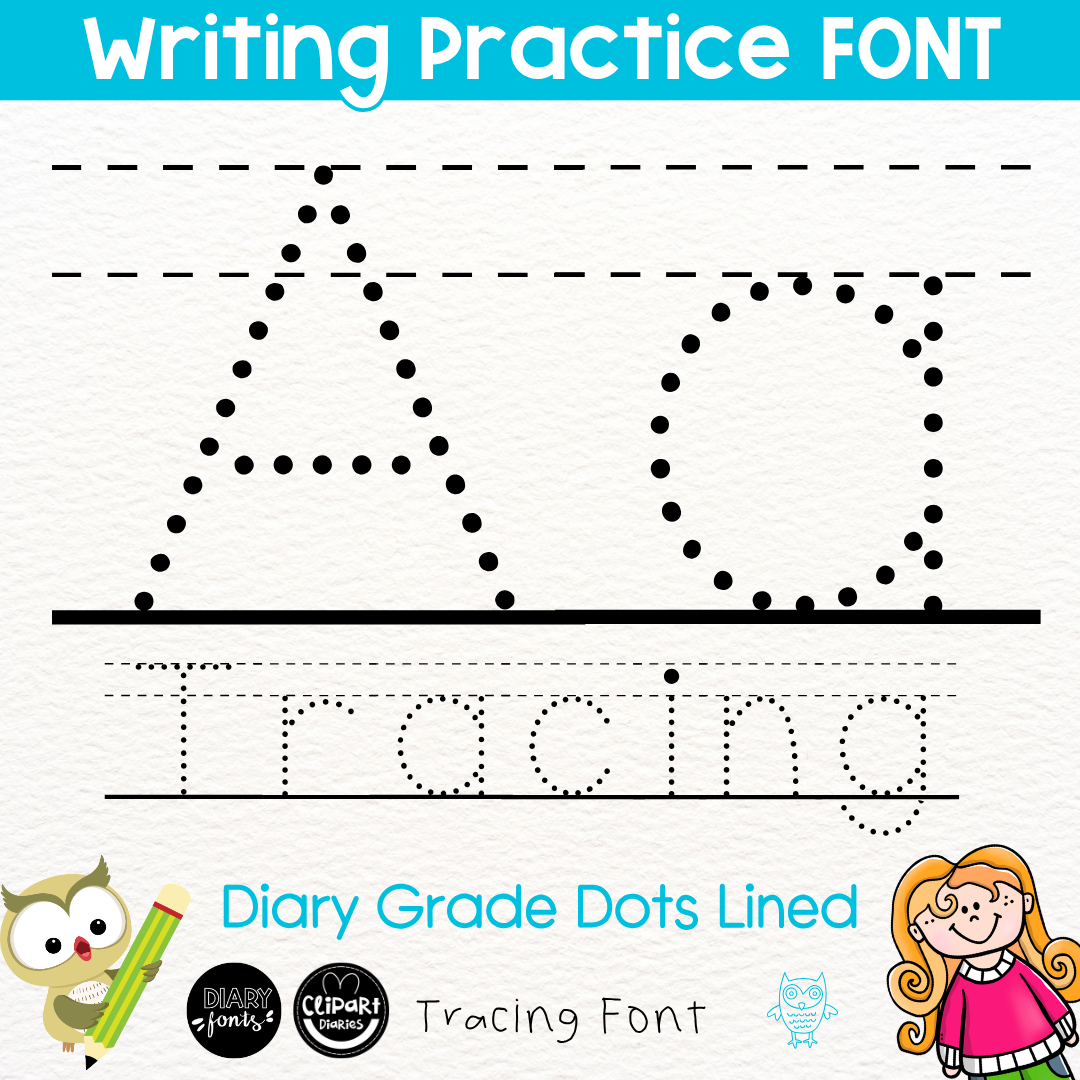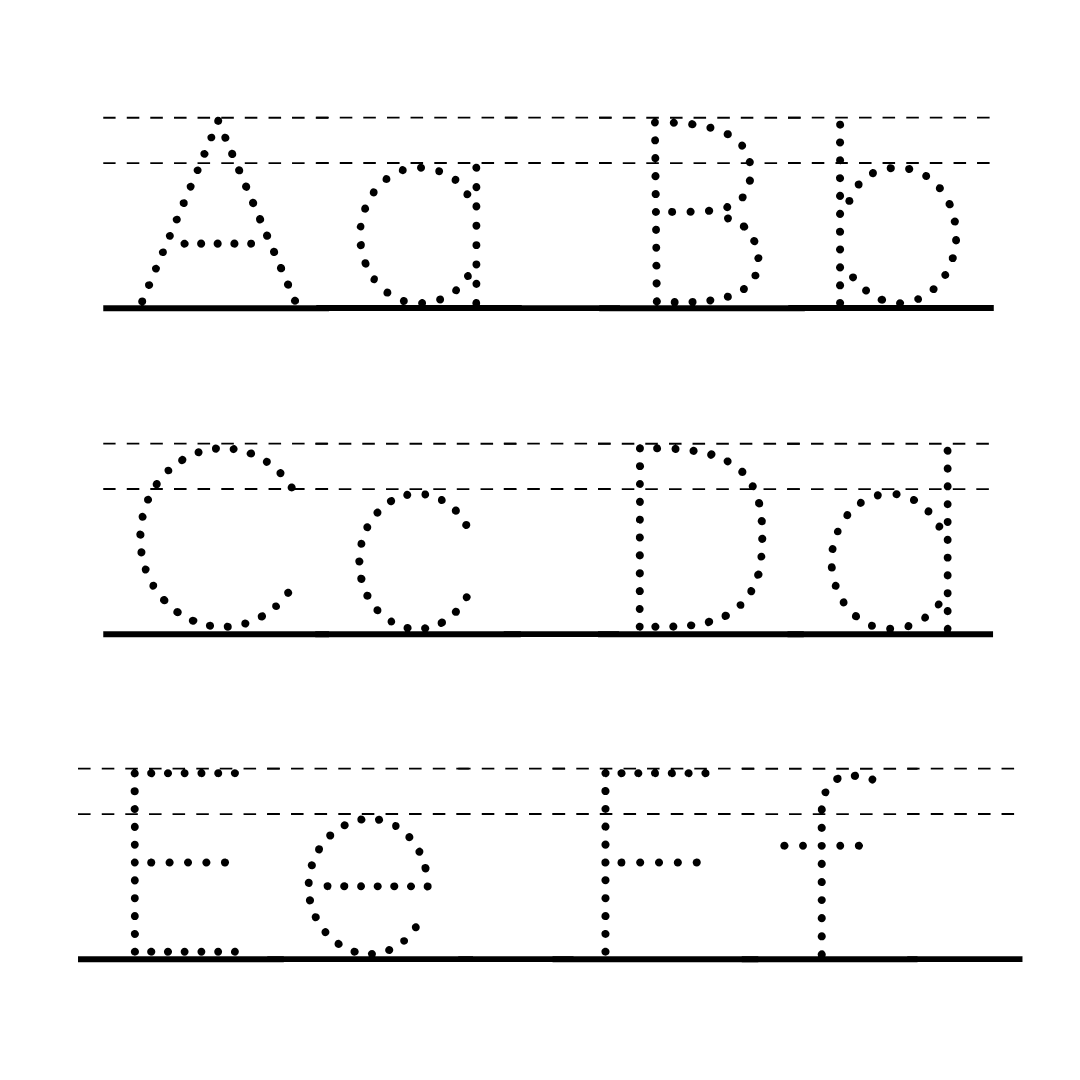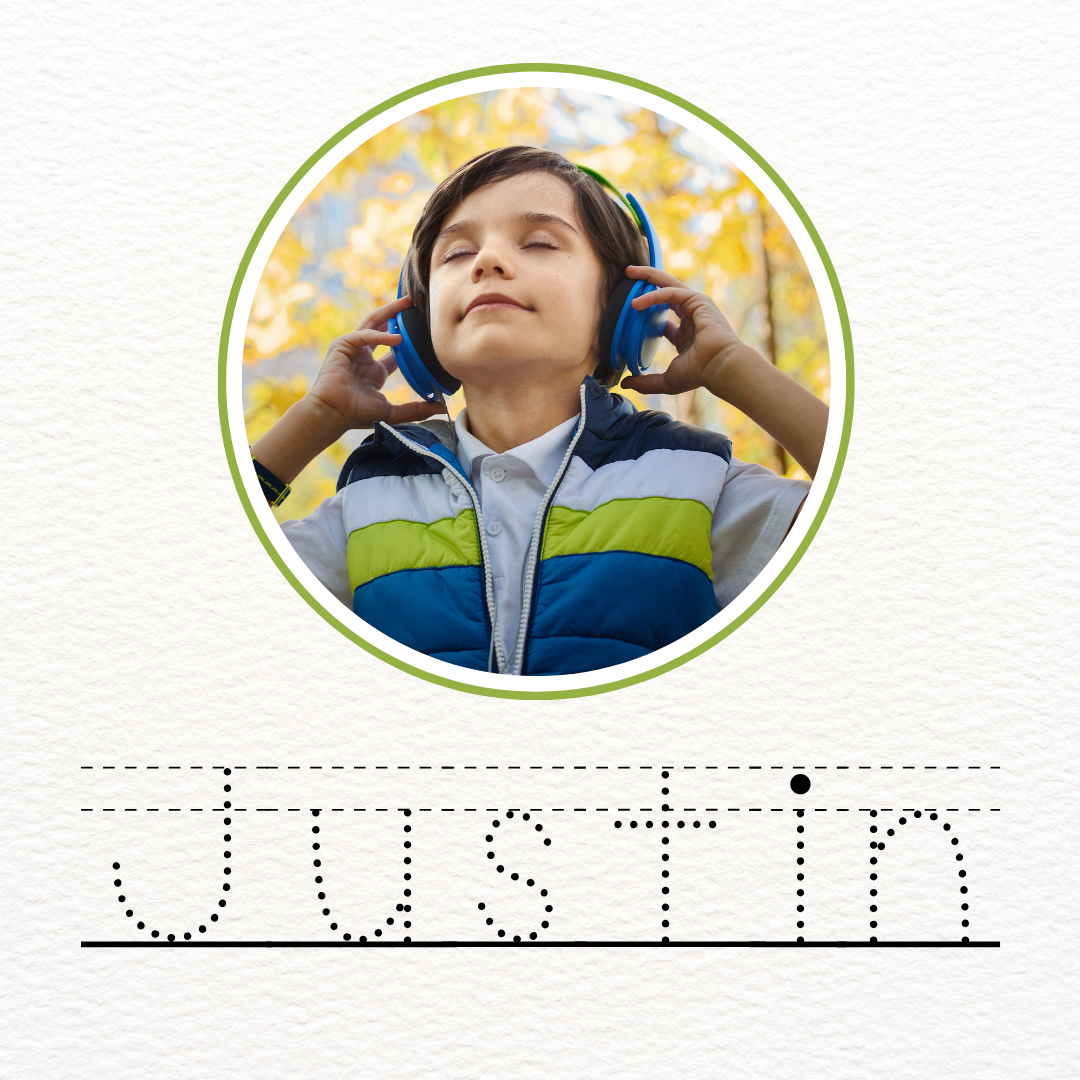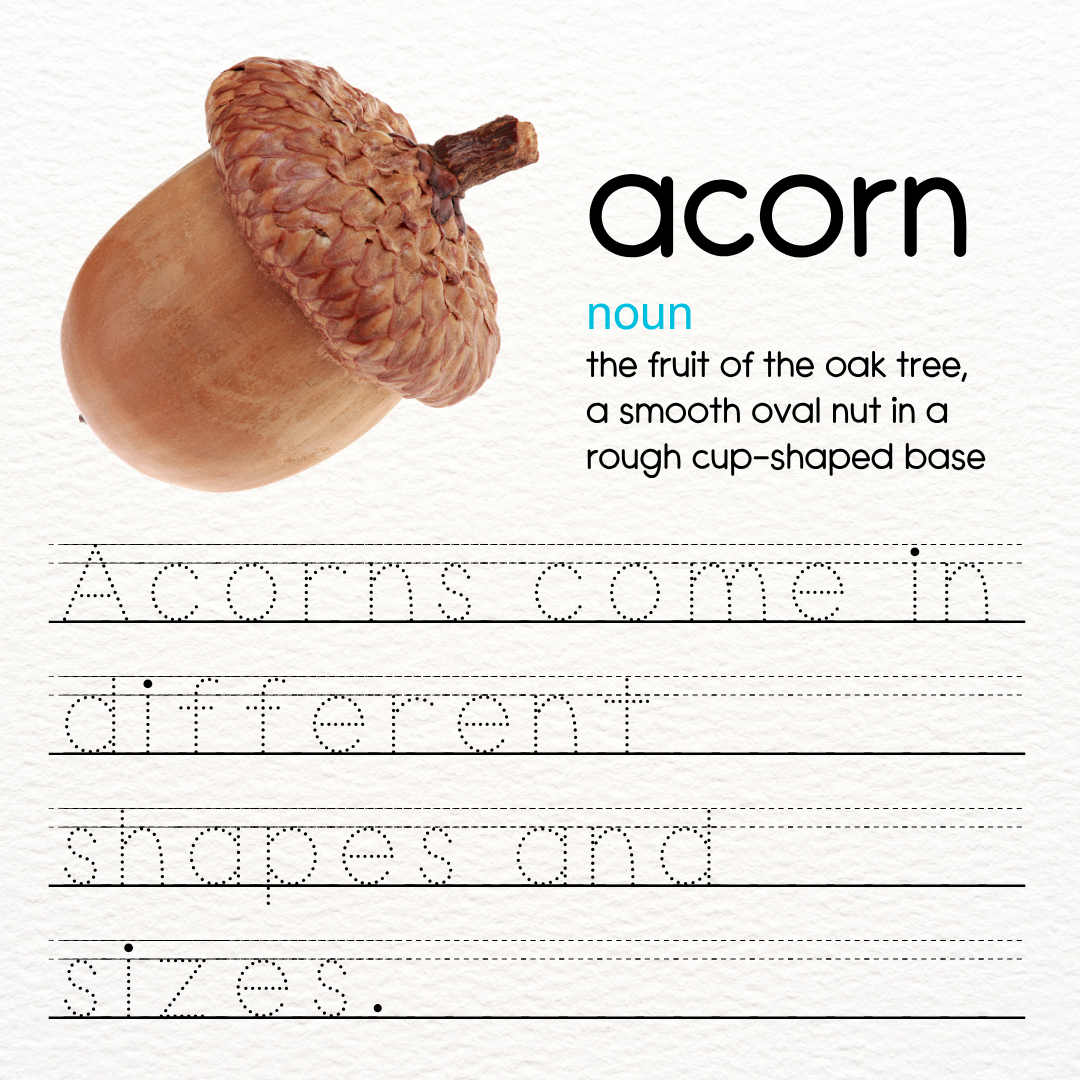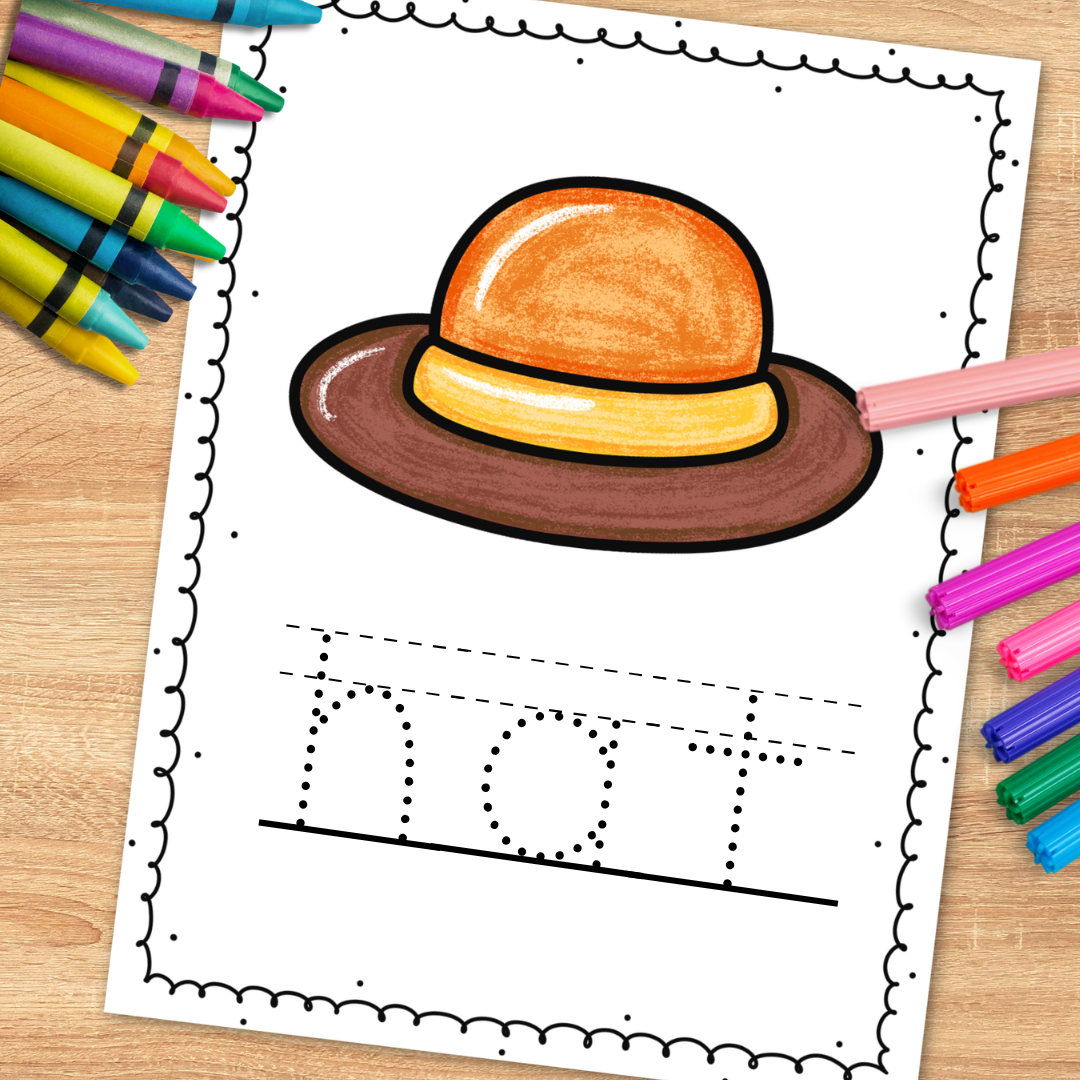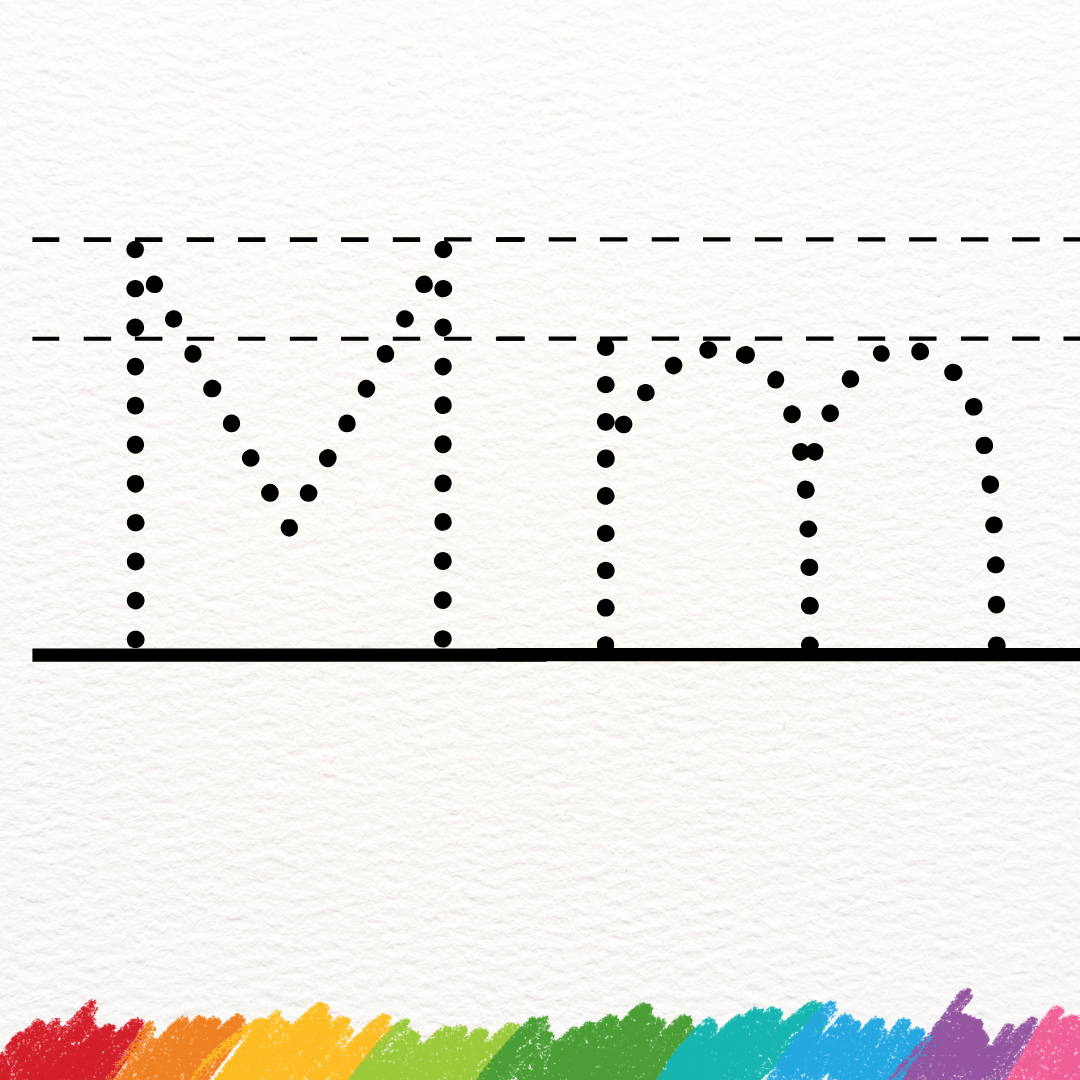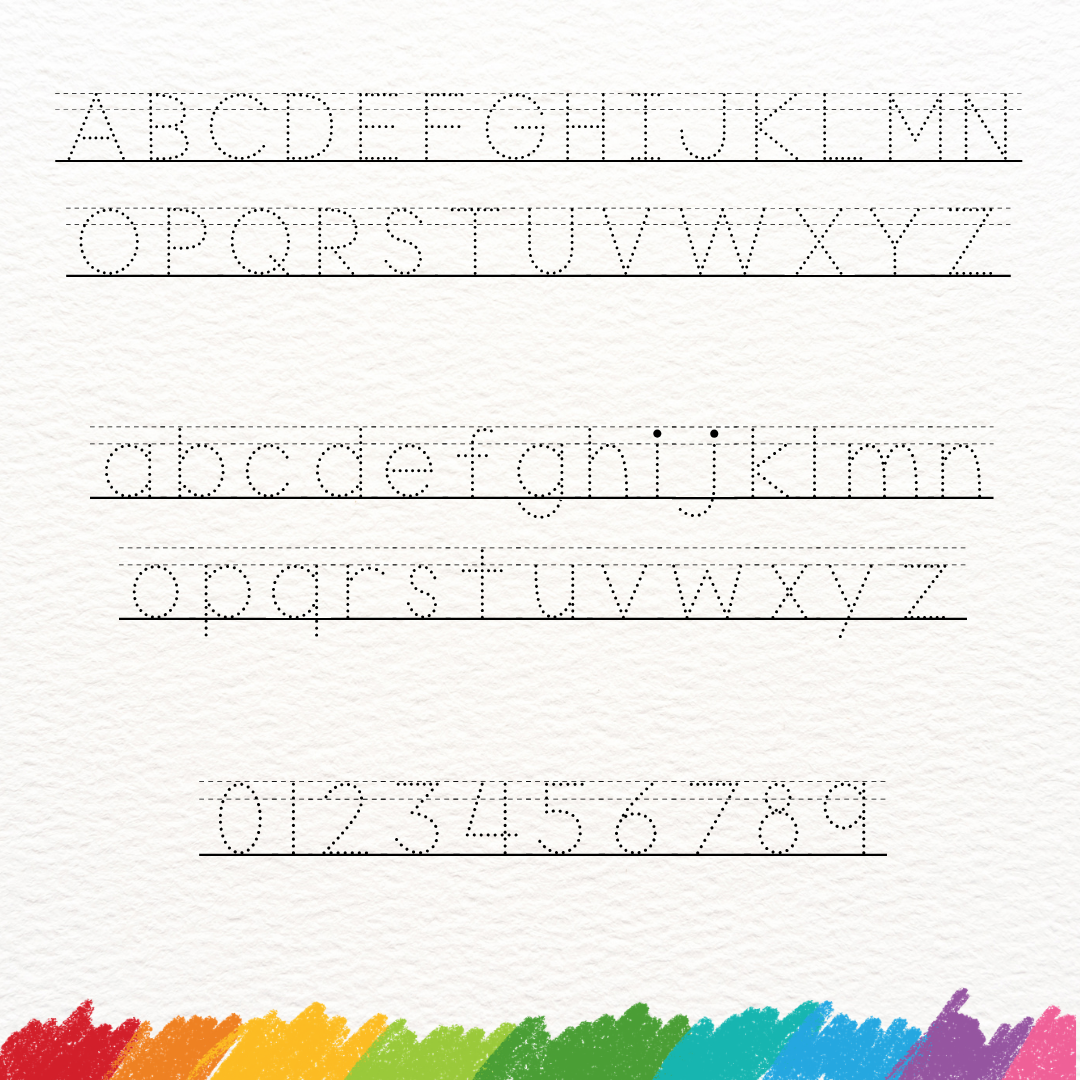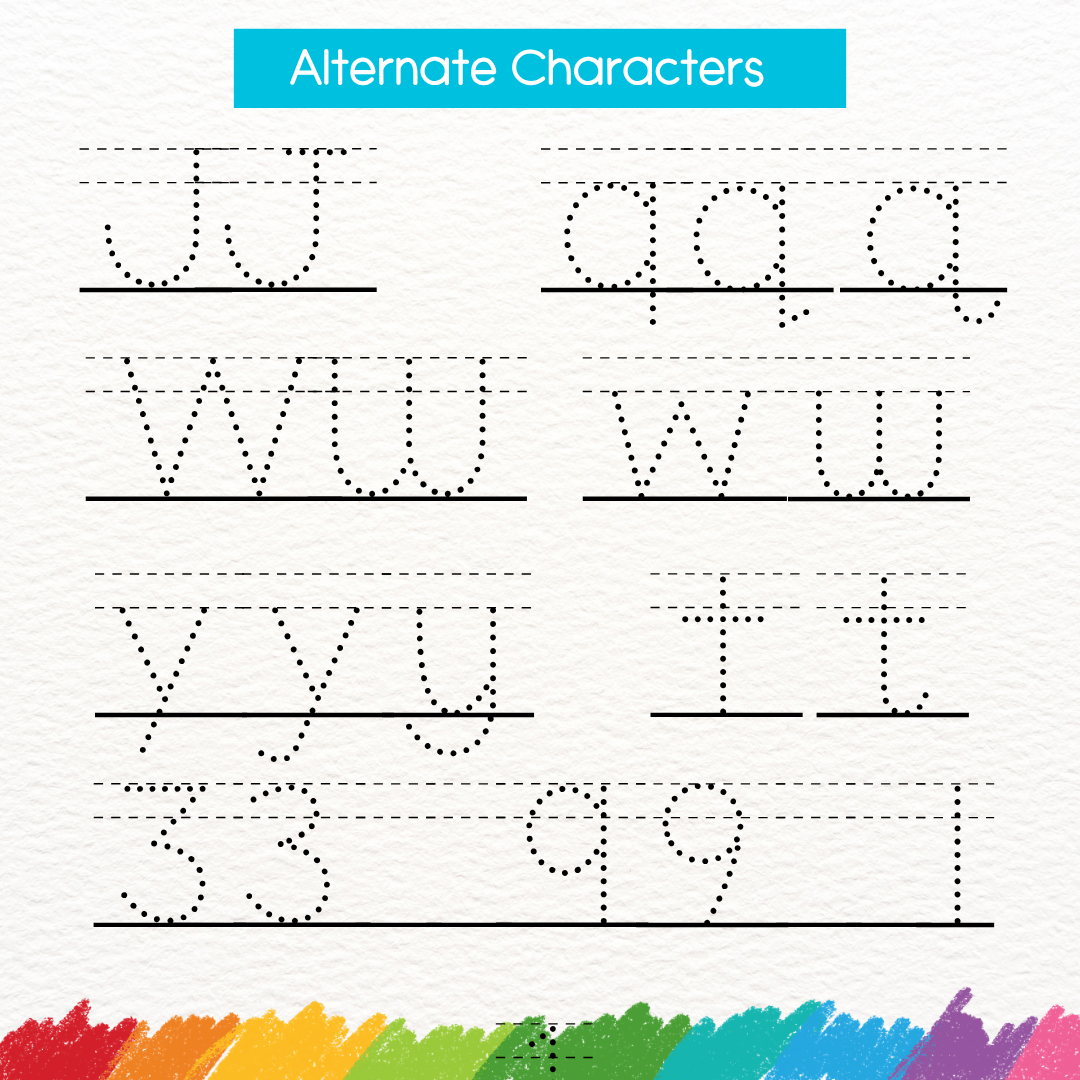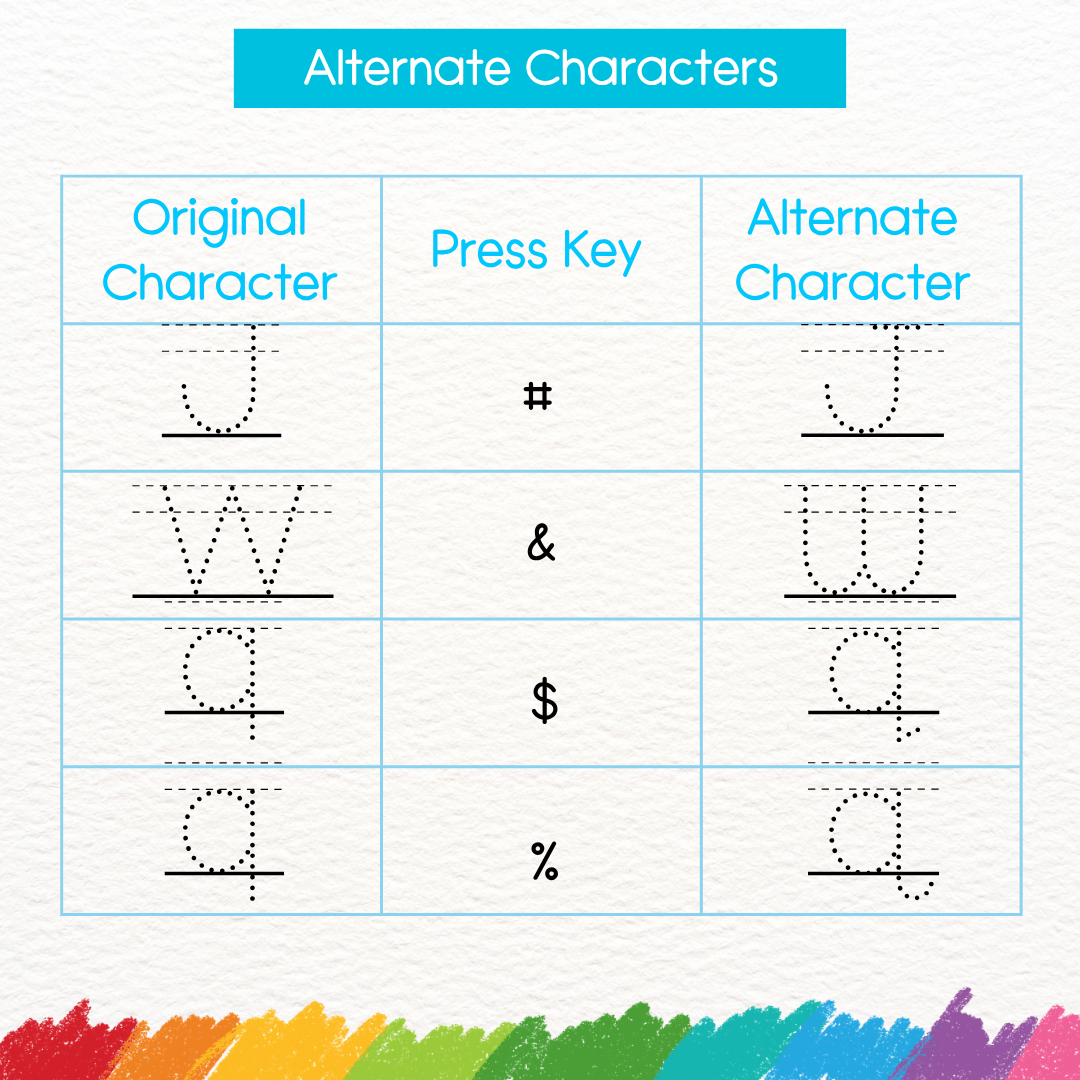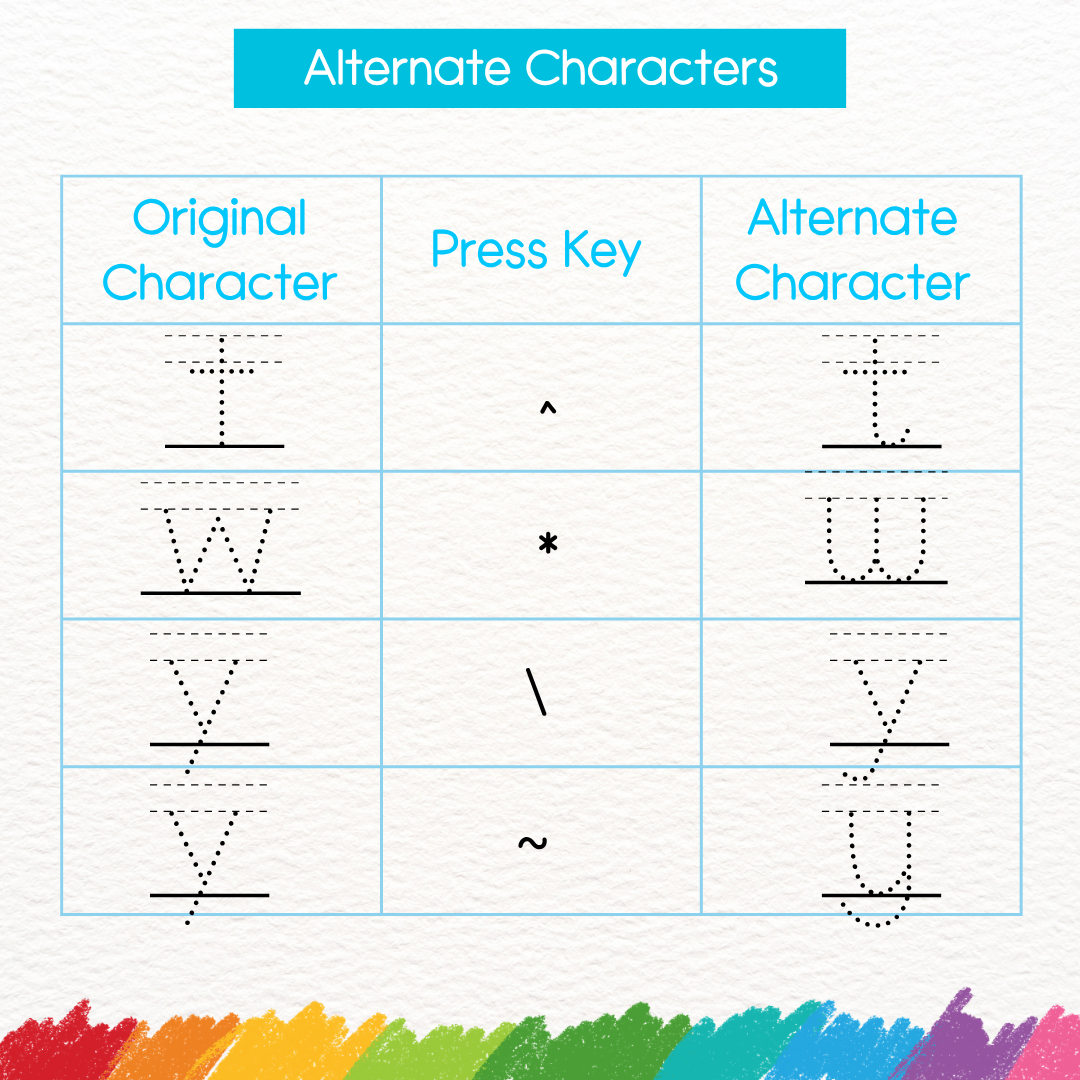
Dotted Tracing Lined Font – Ruled Font for Handwriting – Diary Grade Dots Lined
This font has dotted letters with lines (baseline, x-height line, and ascender line) perfect for tracing and fine motor activities. This set includes all capital letters, small letters, and numbers best for alphabet tracing, name tracing, letter recognition letter tracing, and number tracing exercises worksheets.
Create fun and engaging activities for kids to trace letters with this neat handwriting font!